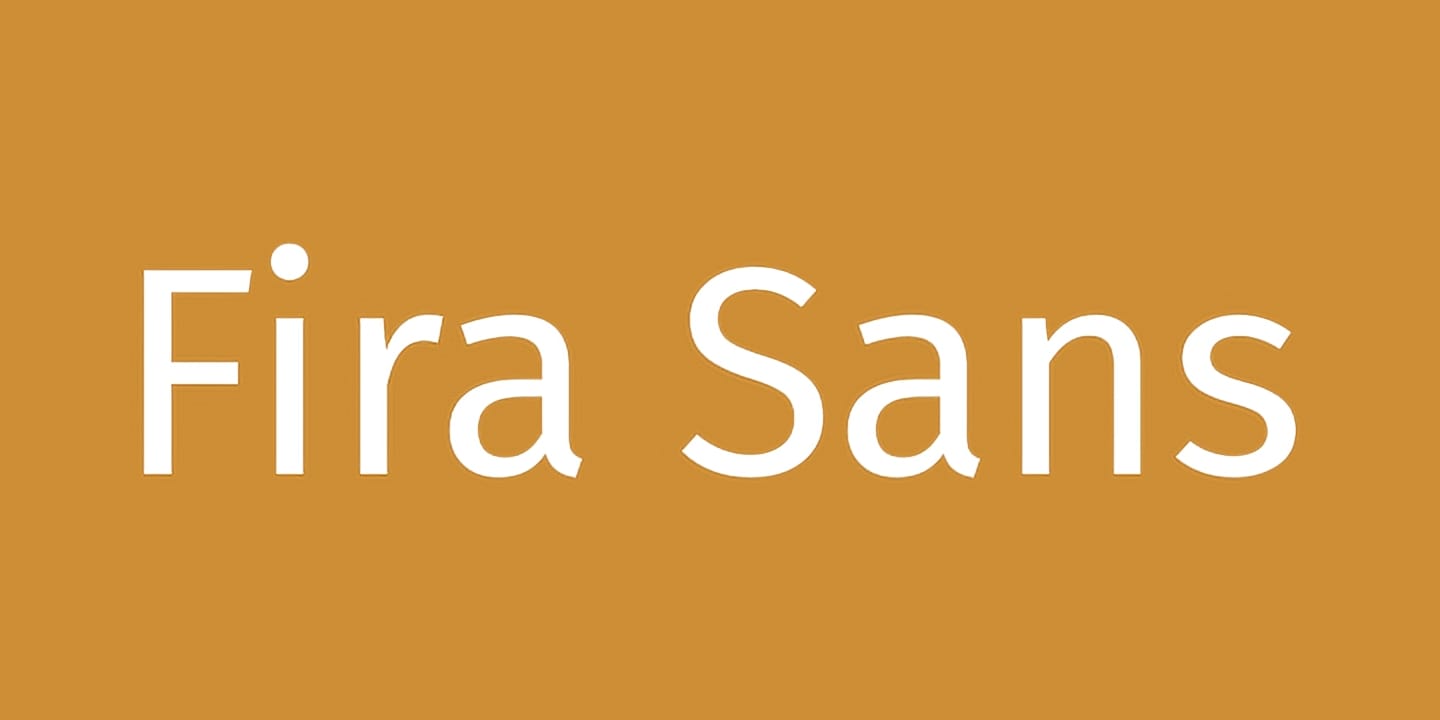
Download an awesome bundle of 100 high quality free fonts
Are you looking for the perfect fonts to enhance your designs? Whether you're designing for web, print, or anything in between, a good font can make all the difference. Today, we're thrilled to share an incredible collection of 100 free font families comprising 471 individual fonts – and the best part? They're all 100% free for personal and commercial use, thanks to their SIL and APACHE licenses.
This collection includes a variety of font styles, from elegant serifs and modern sans-serifs to playful scripts and bold display fonts. With previews of every font included in this blog post, you’ll have all the inspiration you need to find the perfect typefaces for your projects.
What’s Included
Here’s the full list of the font families in this freebie, along with the number of styles each family offers:
• Abril Fatface: 1 Style
• Afta Sans: 2 Styles
• Alex Brush: 1 Style
• Alfa Slab: 1 Style
• Allura: 1 Style
• Amatic: 2 Styles
• Anonymous Pro: 4 Styles
• Antonio: 3 Styles
• Aquafina: 1 Style
• Architects Daughter: 1 Style
• Archivo Black: 1 Style
• Arizonia: 1 Style
• Asset: 1 Style
• Atkinson Hyperlegible: 4 Styles
• Baloo: 1 Style
• Barrio: 1 Style
• Bebas Neue: 5 Styles
• Bench Nine: 3 Styles
• Bitter: 4 Styles
• Blackout: 2 Styles
• Boogaloo: 1 Style
• Cabin: 8 Styles
• Ceviche One: 1 Style
• Charis SIL: 4 Styles
• Cherry Swash: 2 Styles
• Chunkfive: 2 Styles
• Cinzel: 6 Styles
• Courier Prime: 4 Styles
• Dancing Script OT: 1 Style
• Diplomata: 1 Style
• Dosis: 7 Styles
• Droid Sans: 2 Styles
• Droid Serif: 4 Styles
• EB Garamond: 10 Styles
• Elsie: 4 Styles
• Enriqueta: 2 Styles
• Faster: 1 Style
• Flavors: 1 Style
• Gentium Basic: 8 Styles
• Geo: 2 Styles
• Grand Hotel: 1 Style
• Great Vibes: 1 Style
• Hammersmith One: 1 Style
• Herr Von Muellerhoff: 1 Style
• Heuristica: 4 Styles
• Istok: 4 Styles
• Junction Regular: 3 Styles
• Karla: 14 Styles
• Kaushan Script: 1 Style
• Kavoon: 1 Style
• Lato: 18 Styles
• League Gothic: 4 Styles
• Liberation Mono: 4 Styles
• Libre Baskerville: 3 Styles
• Limelight: 1 Style
• Linux Biolinum: 3 Styles
• Mako: 1 Style
• Merriweather Sans: 8 Styles
• Michroma: 1 Style
• Modak: 1 Style
• Mountains of Christmas: 1 Style
• Muli: 10 Styles
• New Athena Unicode: 1 Style
• New Rocker: 1 Style
• News Cycle: 2 Styles
• Noticia Text: 4 Styles
• Noto Sans: 72 Styles
• Noto Serif: 72 Styles
• Open Sans: 10 Styles
• Ostrich Sans Inline: 2 Styles
• Passion One: 3 Styles
• Permanent Marker: 1 Style
• Piedra: 1 Style
• Playfair Display: 12 Styles
• Pompiere: 1 Style
• PT Mono: 1 Style
• Quantico: 4 Styles
• Quattrocento Roman: 2 Styles
• Quattrocento Sans: 4 Styles
• Questrial: 1 Style
• Radley: 1 Style
• Raleway: 18 Styles
• Roboto: 18 Styles
• Rochester: 1 Style
• Rock Salt: 1 Style
• Sometime Later: 1 Style
• Soria: 1 Style
• Source Sans Pro: 12 Styles
• Source Serif Pro: 12 Styles
• Spicy Rice: 1 Style
• Tangerine: 2 Styles
• Tinos: 4 Styles
• Trade Winds: 1 Style
• Ultra: 1 Style
• Uncial Antiqua: 1 Style
• Varela Round: 1 Style
• Vast Shadow: 1 Style
• Yeseva One: 1 Style
• Yokawerad: 1 Style
• Znikomitno24: 1 Style
Why This Collection Is Perfect for Designers
1. Diverse Styles: Whether you're creating a sleek modern website, a vintage poster, or a whimsical invitation, this collection has something for everyone.
2. High Quality: Every font in this collection is meticulously designed and well-suited for professional use.
3. Free Licensing: These fonts are all SIL or APACHE licensed, giving you the freedom to use them in both personal and commercial projects without worry.
A catalog is also included, providing a preview of each font family. While it doesn't cover full specifications, it offers a clear glimpse of the styles available for easy selection. Explore the previews below to see what each font looks like in action.
Explore the previews below to see what each font looks like in action. Enjoy designing with this versatile and robust font library!